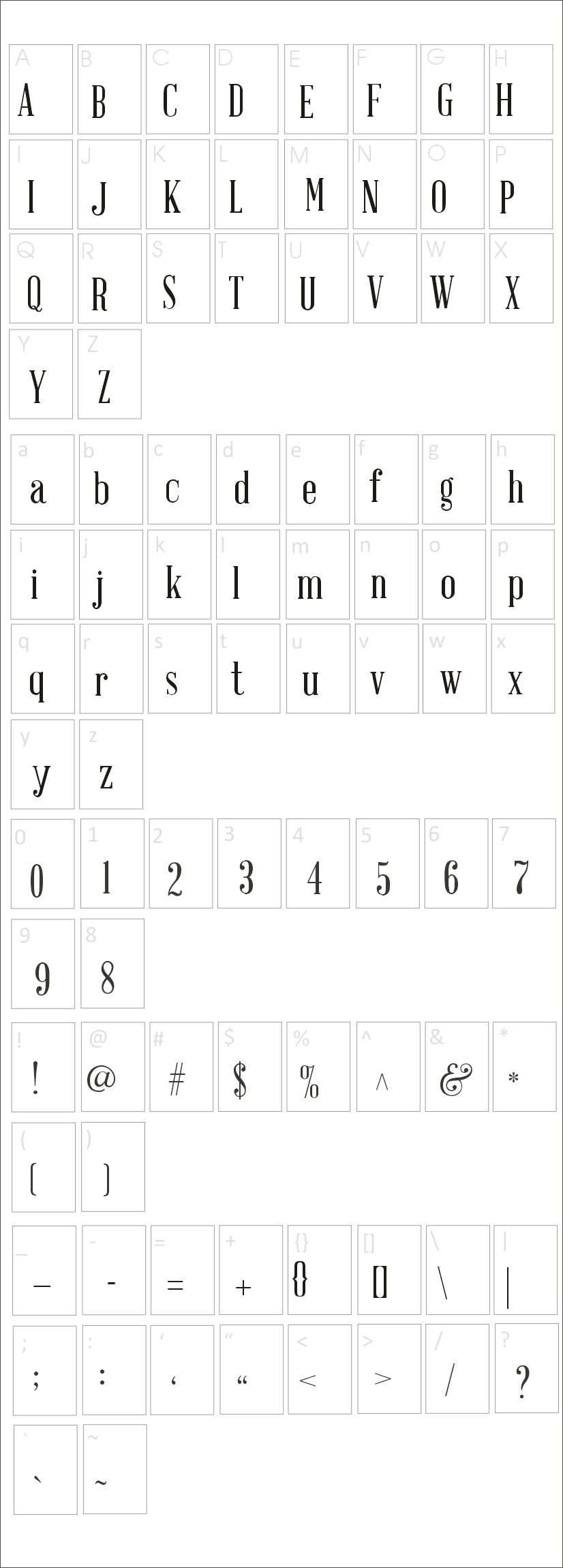
| Name | Abraham Lincoln Font |
| Font Designer | Francis MacLeod |
| Category | Serif, Vintage, Display |
The Abraham Lincoln Font is a unique typeface inspired by the handwriting and signature of the 16th President of the United States, Abraham Lincoln. Designed by Frances MacLeod, this font captures the spirit of American history, making it perfect for projects that need a classic, patriotic, or vintage look. Whether you’re designing a logo, a historical document, or a creative project, this font adds a touch of authenticity and elegance.
Key Features of Abraham Lincoln Font Family:
- Historical Significance: The font’s design is based on the handwriting of one of America’s most iconic leaders.
- Patriotic Theme: Abraham Lincoln evokes a sense of American history and patriotism, making it perfect for projects related to the United States.
- Versatile Usage: The font can be used for a variety of projects, including branding, website design, creative writing, and historical documents.
- Multiple Weight Options: The font family includes various weight options, Regular, Bold, and Italic, allowing you to find the perfect style for your specific needs.
Ideal Uses for Abraham Lincoln Font Family:
- Branding: Use Abraham Lincoln for logos, business cards, and other branding materials related to American history or patriotism.
- Website Design: Incorporate Abraham Lincoln into your website design for a historical and patriotic feel.
- Creative Writing: Pair Abraham Lincoln with your creative writing projects to add a touch of authenticity and historical significance.
- Historical Documents: Use Abraham Lincoln to create authentic-looking historical documents or recreations.